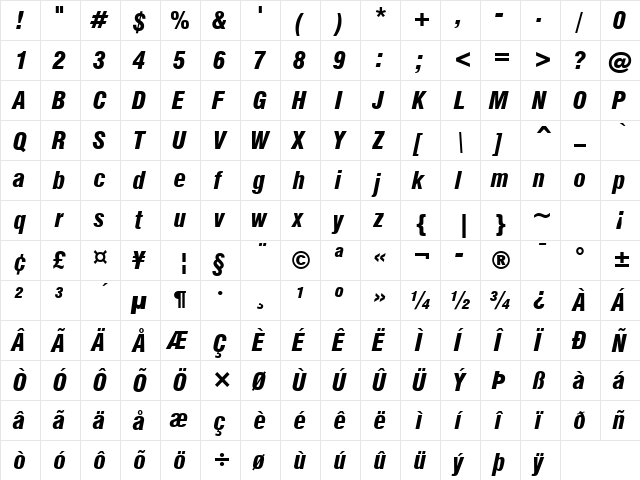
Swis721 BlkCn BT Black Italic
Design Context for Swis721 BlkCn BT Typeface
Swis721 BlkCn BT takes a measured approach to typography — its balanced proportions and neutral character make it a reliable workhorse for both digital and print work. The slanted form adds forward momentum and visual energy.
Pro Tip: Try Swis721 BlkCn BT for annotation and caption copy alongside an upright companion — the contrast in angle creates a dynamic but ordered typographic system.